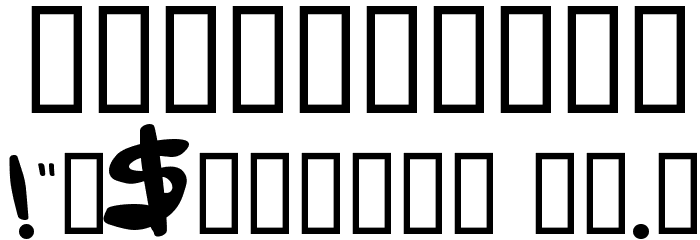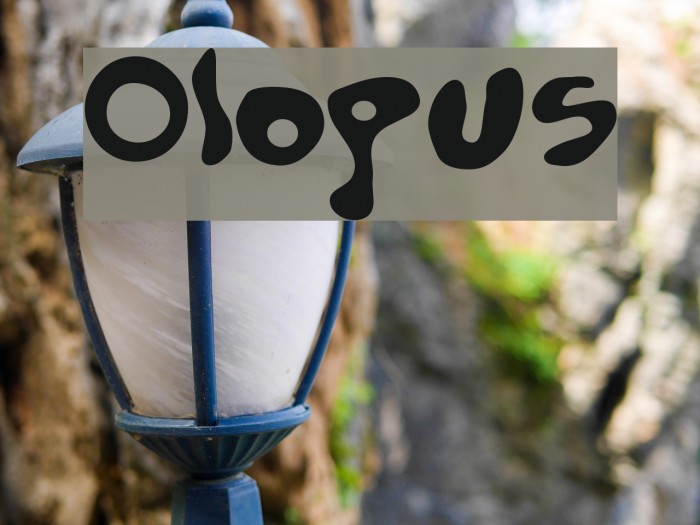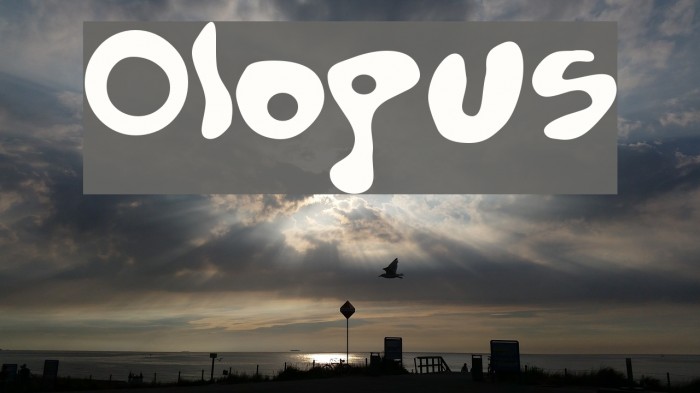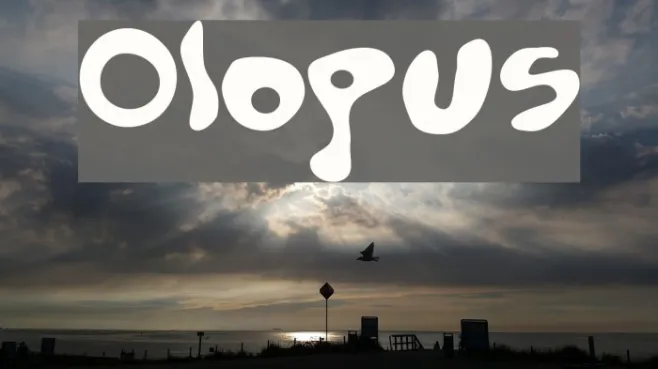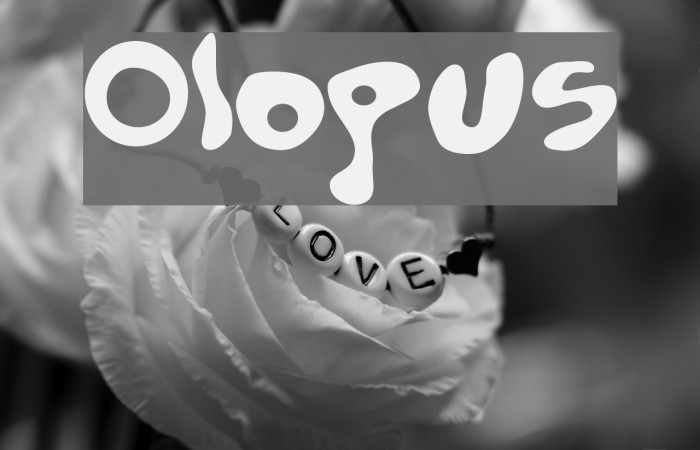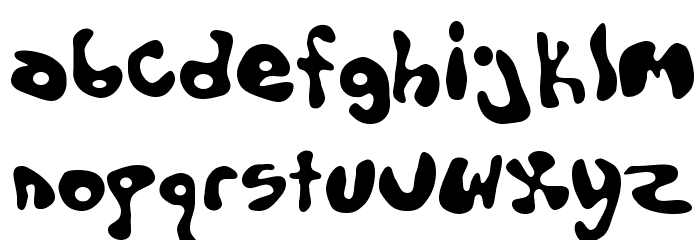
Olopus Font
This font features a playful and bold design with a distinctly organic feel. The characters are rounded and irregular, giving them a whimsical and informal appearance. The uppercase and lowercase letters maintain a consistent style, with exaggerated curves and a slightly uneven baseline that adds to the font's charm. The numbers and special characters follow the same playful aesthetic, making this font ideal for projects that require a fun and engaging look. Its unique style makes it stand out, perfect for creative and artistic applications.
A playful, bold font with an organic and whimsical design.
• Proposed Projects: Ideal for children's books, playful branding, creative posters, and artistic projects.
• Category: Decorative/Display
• Bold: Yes
• Italic: No
• Weight: Bold
• Width: Normal
• Character Spacing: Normal
• Contrast: Low
• Overall Style: Playful, Whimsical
• Use Case: Headlines, Posters, Creative Projects